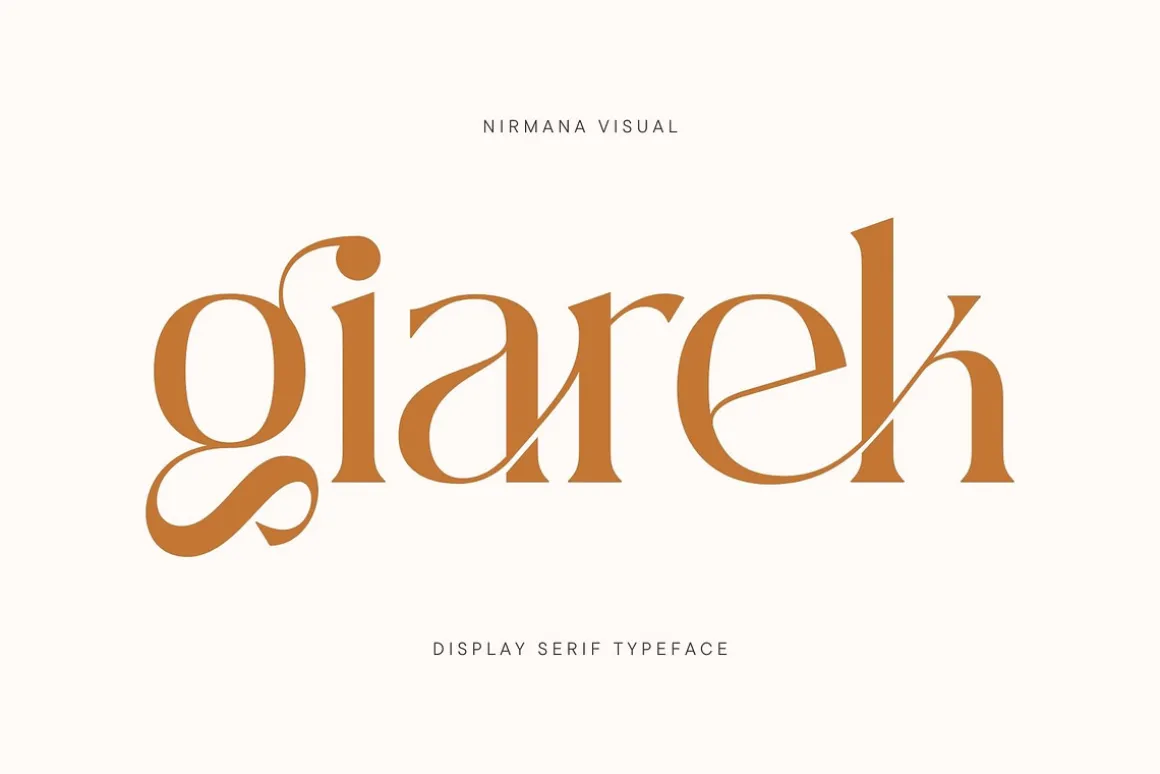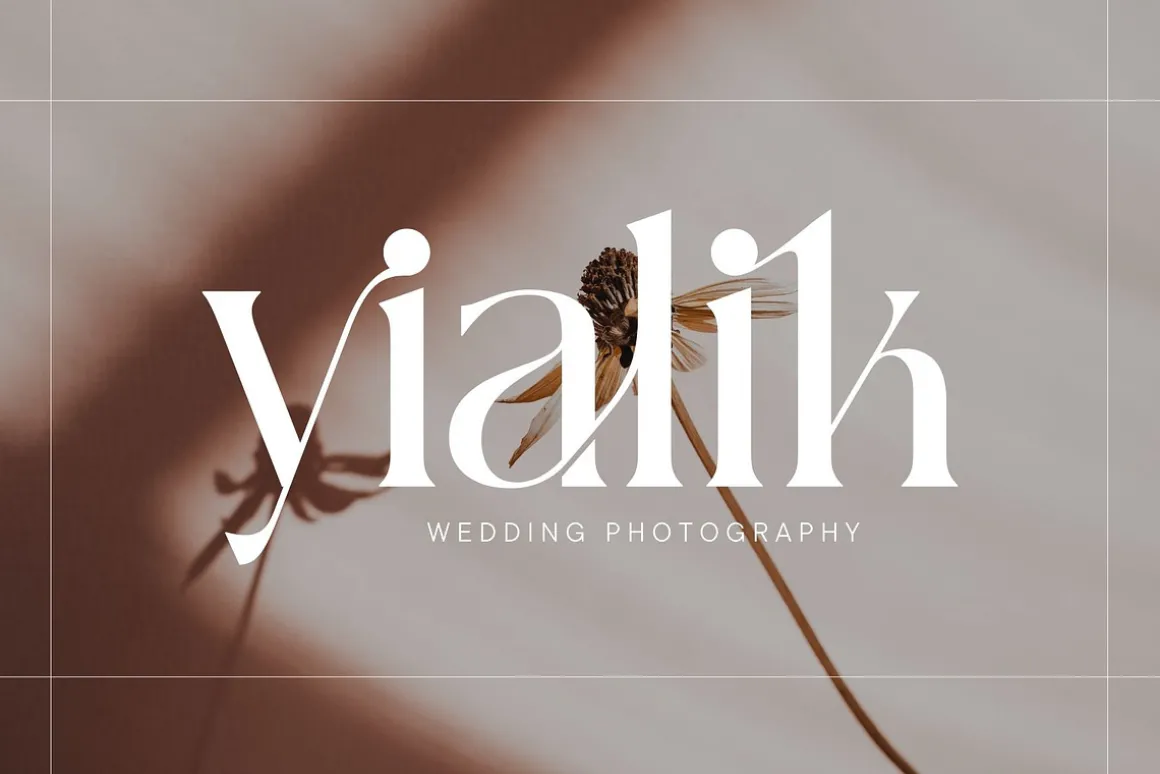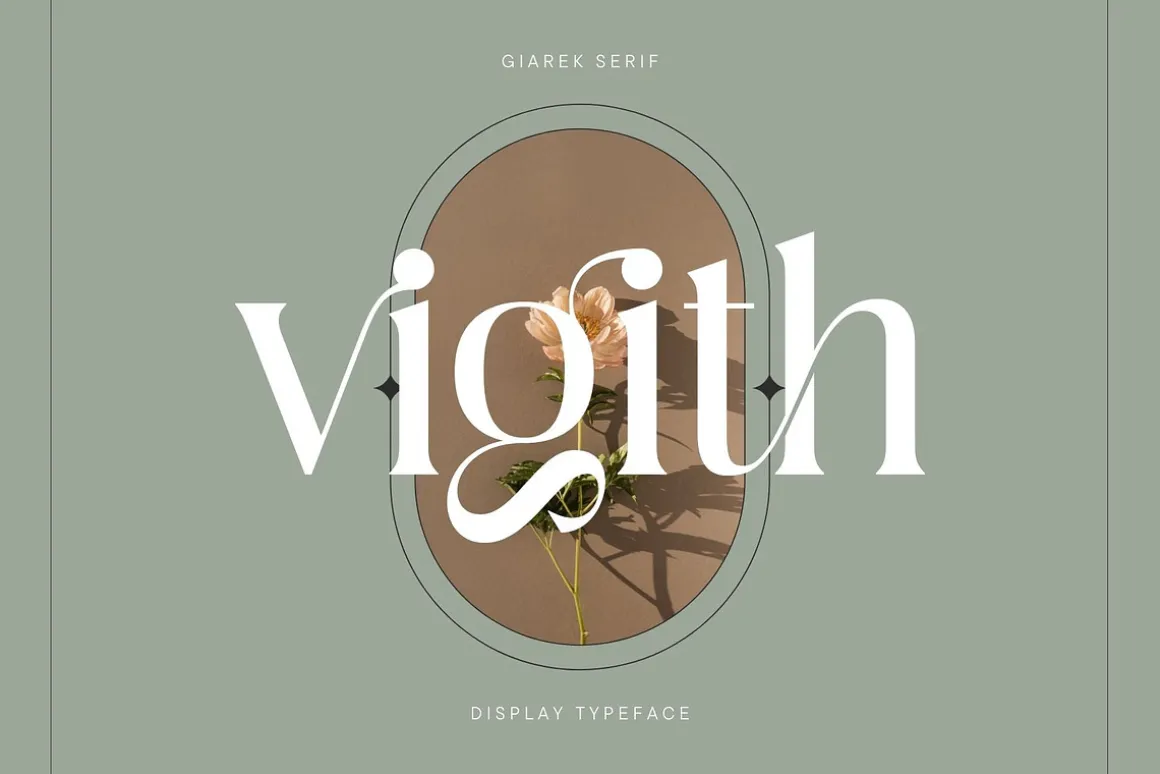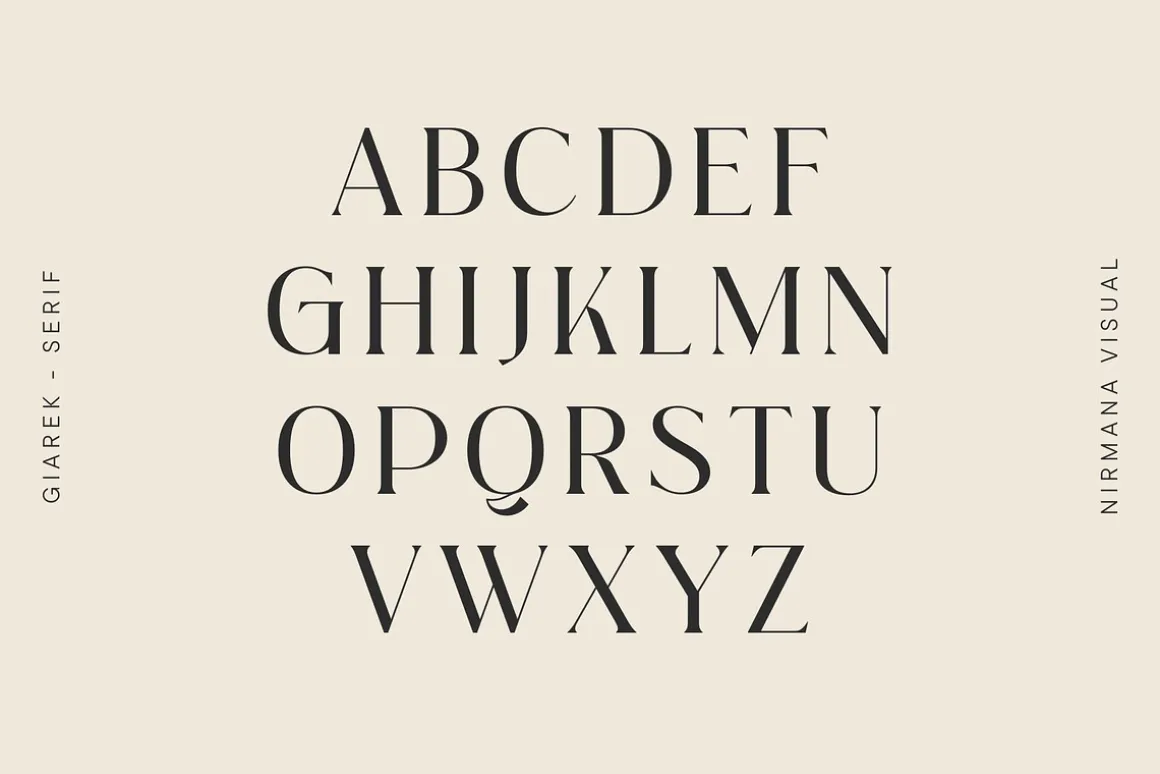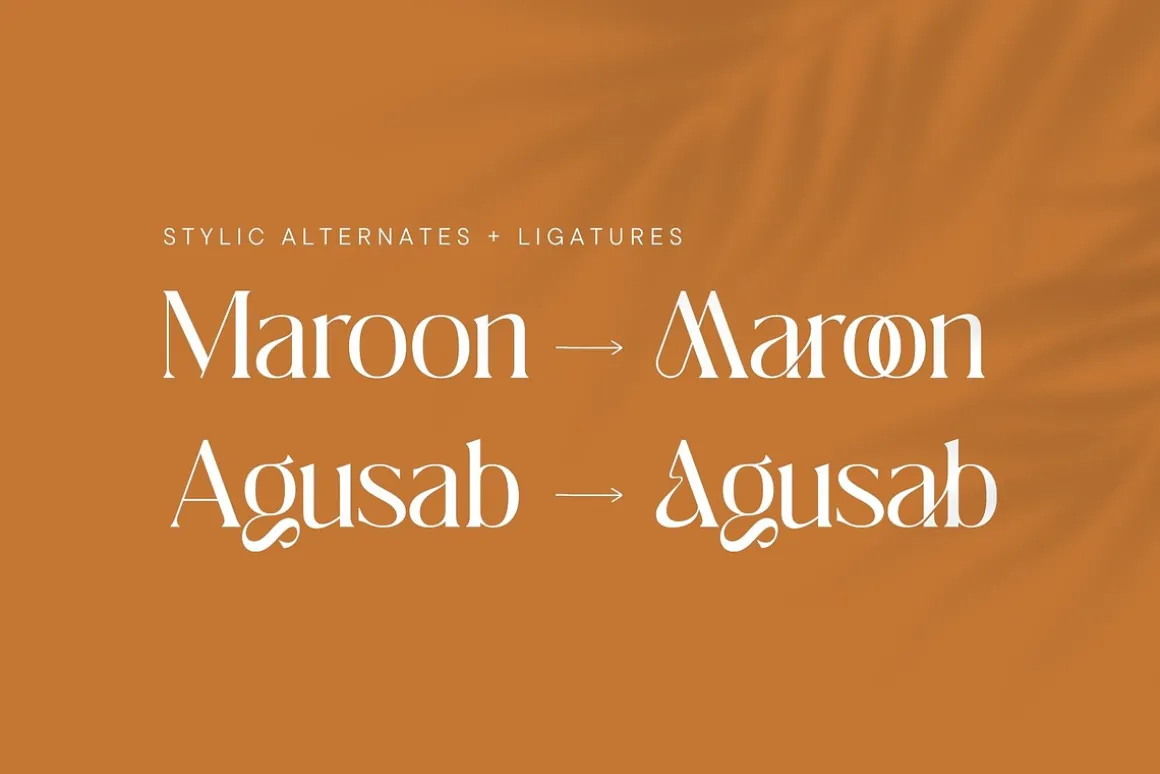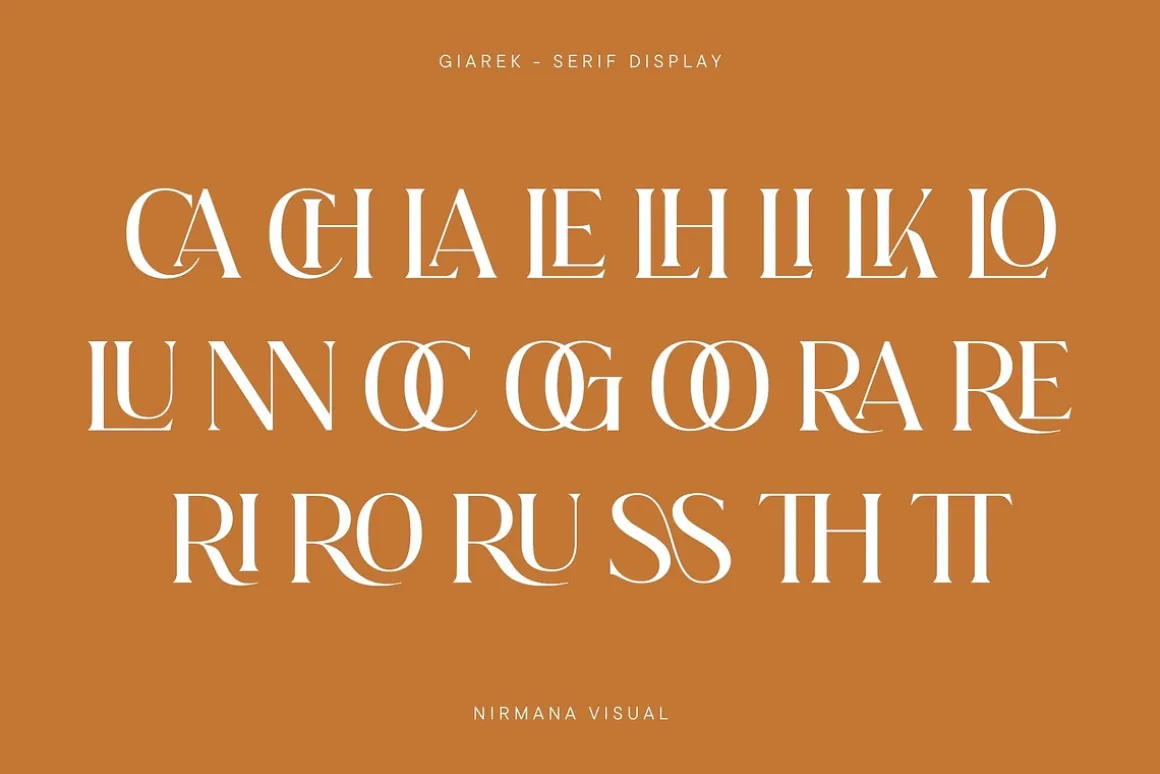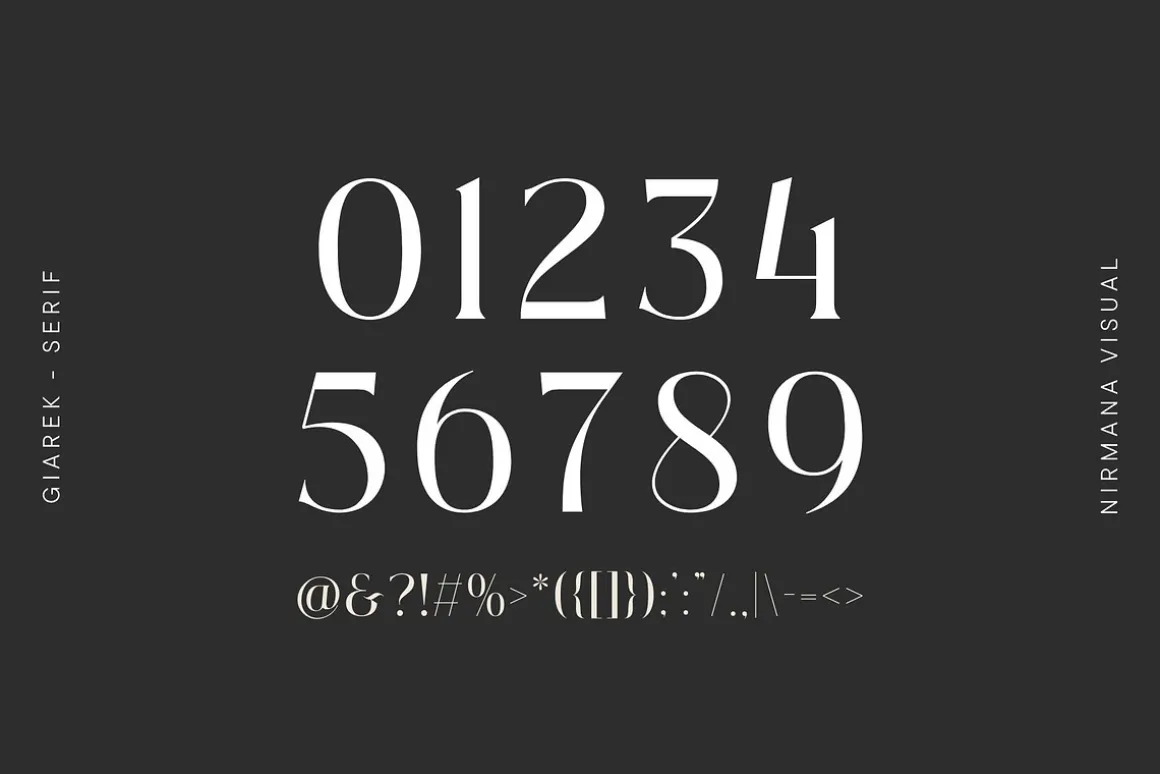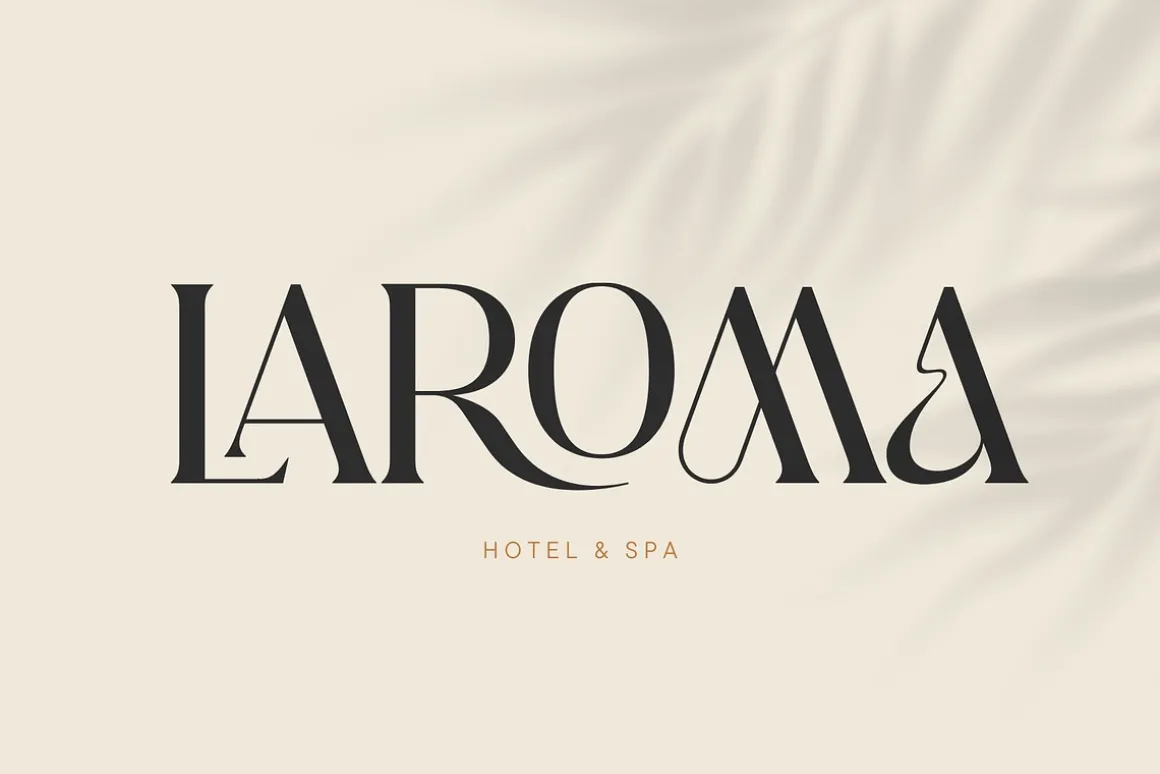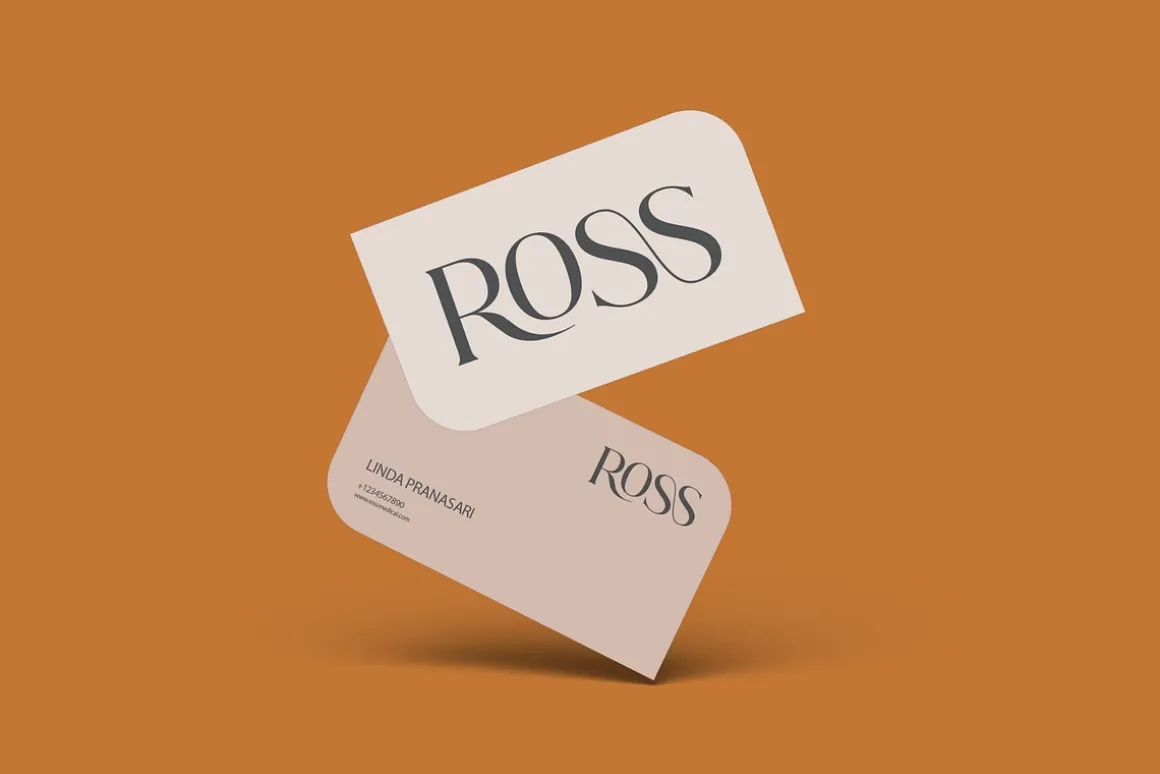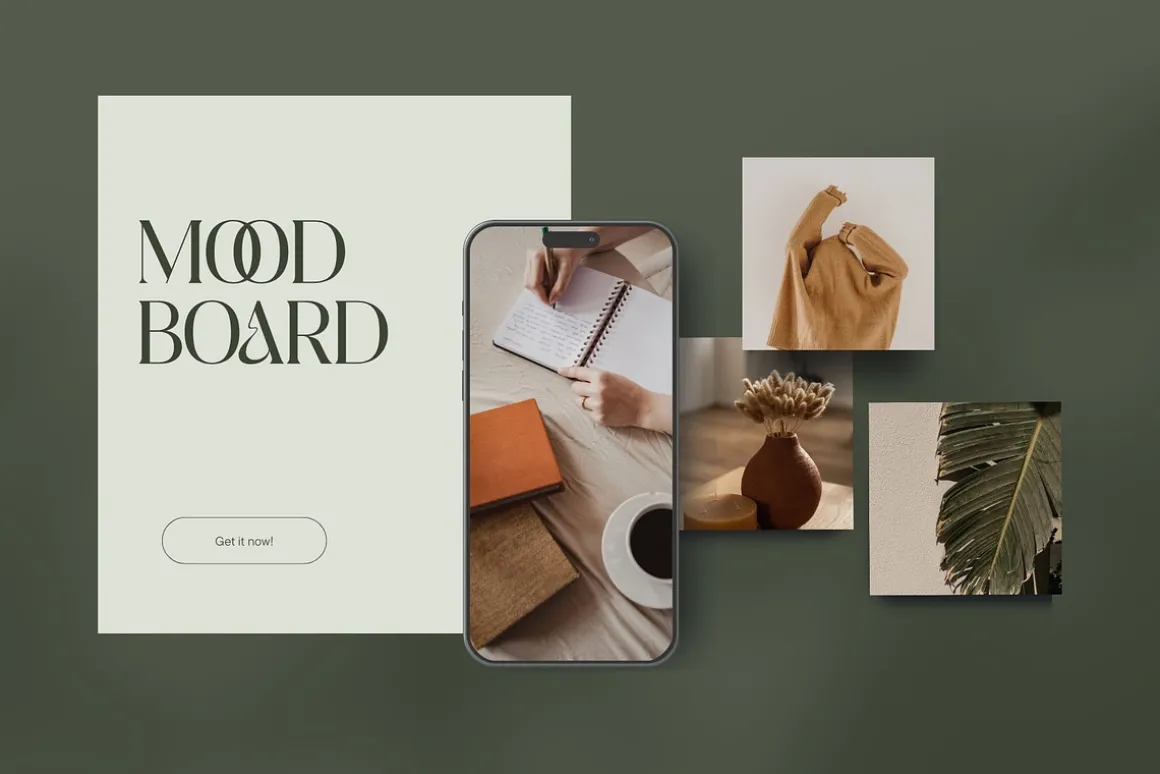
Giarek – Ligature Serif Font
Giarek offers beautiful typographic harmony for a diversity of design projects, including logos & branding, social media posts, advertisements & product designs.